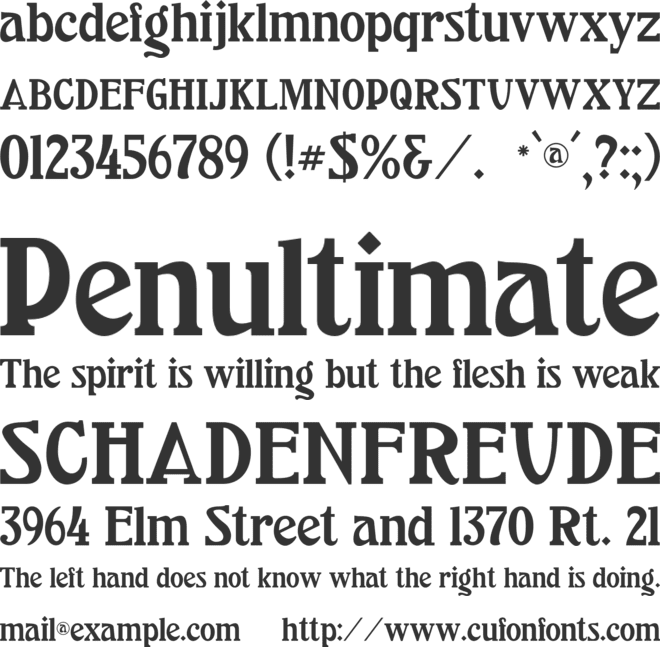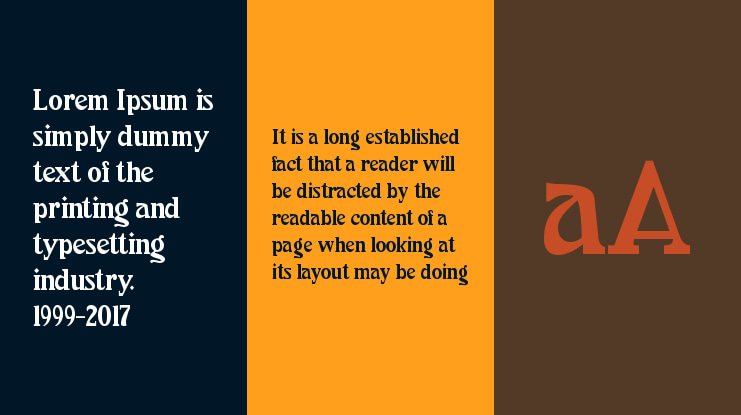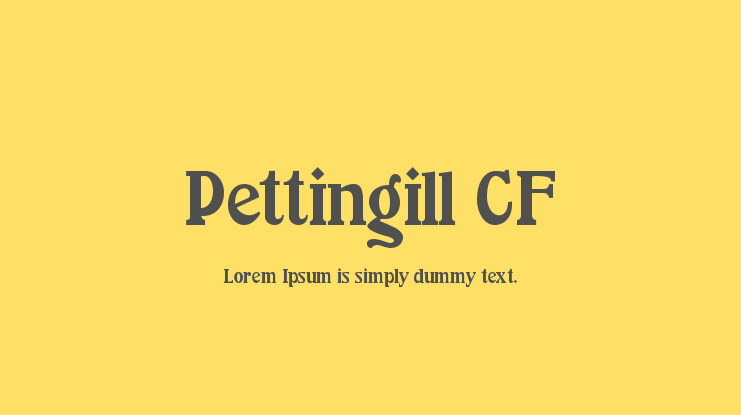
Pettingill CF is my revival, completely redrawn, of Arlington Old Style, a typeface I found in Pettingill Type Book (Pettingill & Co., 1901). This font is a bold serif font appropriate for posters, advertising, logos, headlines, signage and greeting cards. Pettingill CF could also support a vintage-modern design, and would be appropriate as a Secessionist font. Some of the glyph shapes are especially interesting. I find the g quite beautiful and the a elegant. The shape of the number 4 is interesting too.
Pettingill CF required quite a bit of redesigning since the stems in the glyphs were not regular, and the upper and lower serifs had a bewildering variety of dimensions. I believe I resolved this issue and made Pettingill useful for contemporary digital work.
I also enjoyed some of the copy in the display texts. Here are two examples: 1. Song of Home composed by one who never spent a minute there; 2. Even if our prices were just as high as those of the average store, it would pay you to come miles to purchase here. And you thought hype was a new thing!